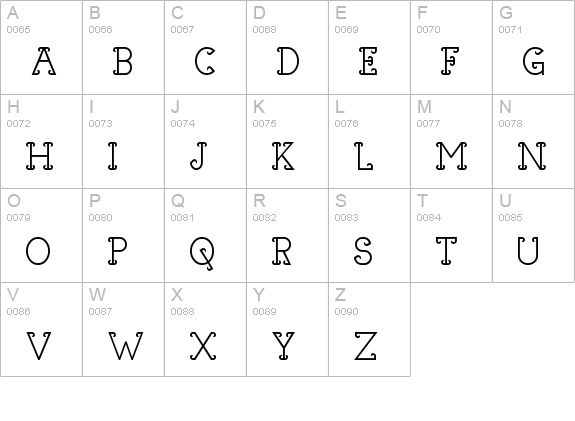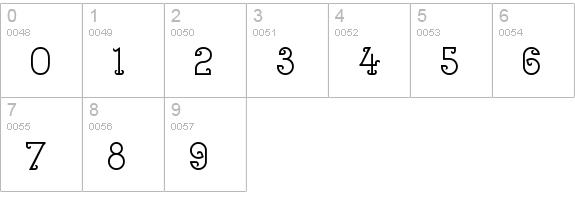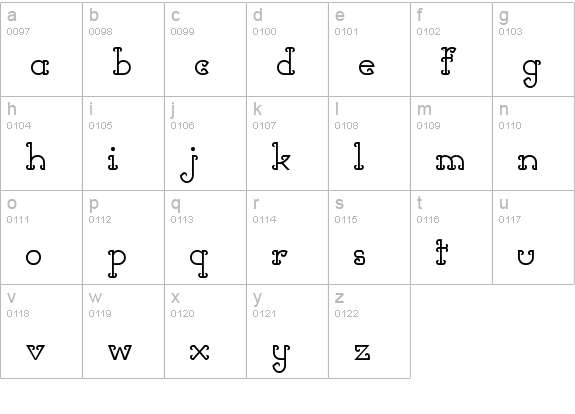
Horns of Dilemma Font Details
Introducing the captivating Horns of Dilemma font, a unique and versatile typeface that adds a touch of intrigue and sophistication to any project. With its bold letterforms and intricate details, this font is sure to make a statement and leave a lasting impression. Horns of Dilemma font is a perfect choice for branding, logos, headlines, posters, and more. Its distinct style exudes a sense of mystery and elegance, making it ideal for projects that require a touch of drama. Best of all, Horns of Dilemma font is available for free download at FontsMarket.com. So whether you're a designer looking to add a creative flair to your work or a hobbyist in search of a unique font for personal projects, this font is the perfect choice. Download it today and unleash your creativity with Horns of Dilemma font.